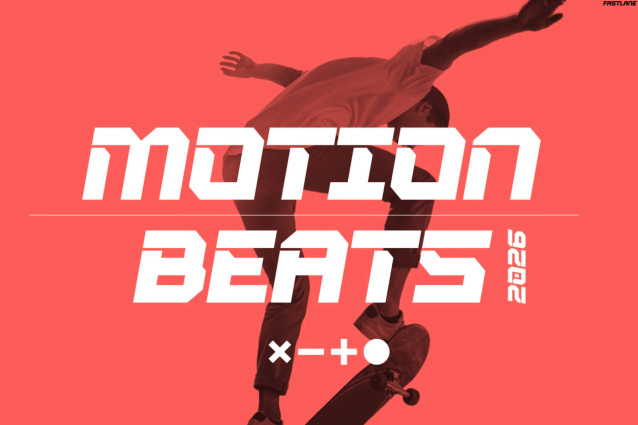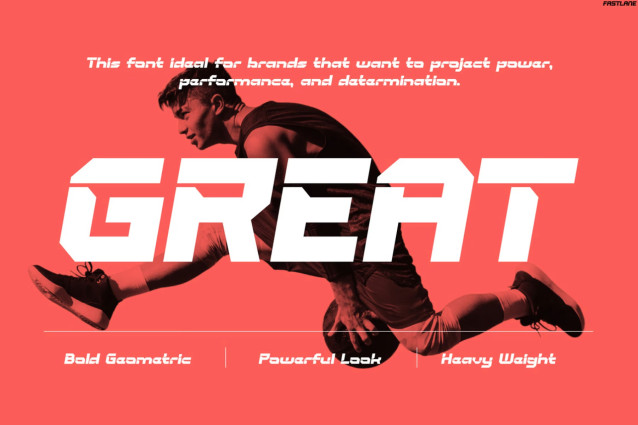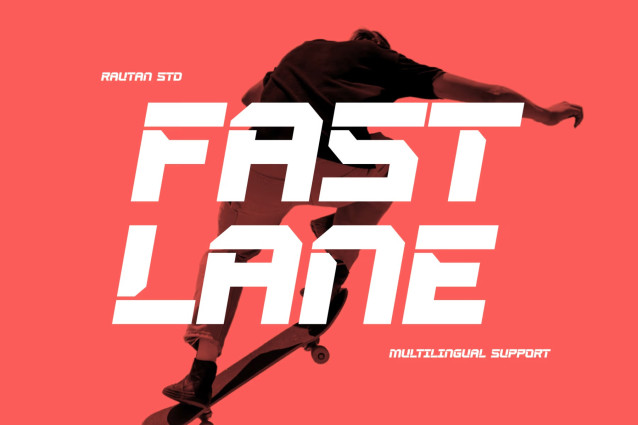
FASTLANE Font
FASTLANE Modern Font captures the thrill of speed through bold, forward-moving letterforms that immediately energize every design. Rather than relying on ordinary typography, FASTLANE combines sharp angles, aerodynamic cuts, and futuristic details to create a powerful visual identity.
Moreover, every character reinforces movement and confidence, allowing your headlines to stand out instantly. As a result, your projects feel faster, stronger, and more competitive. At the same time, the clean structure keeps every word highly readable across print and digital media.